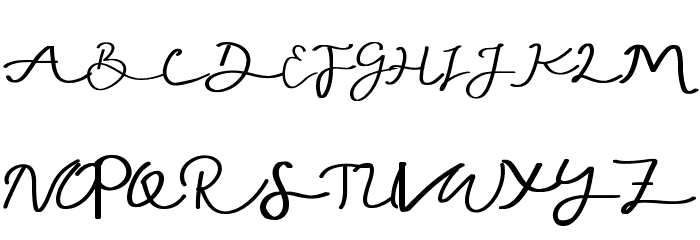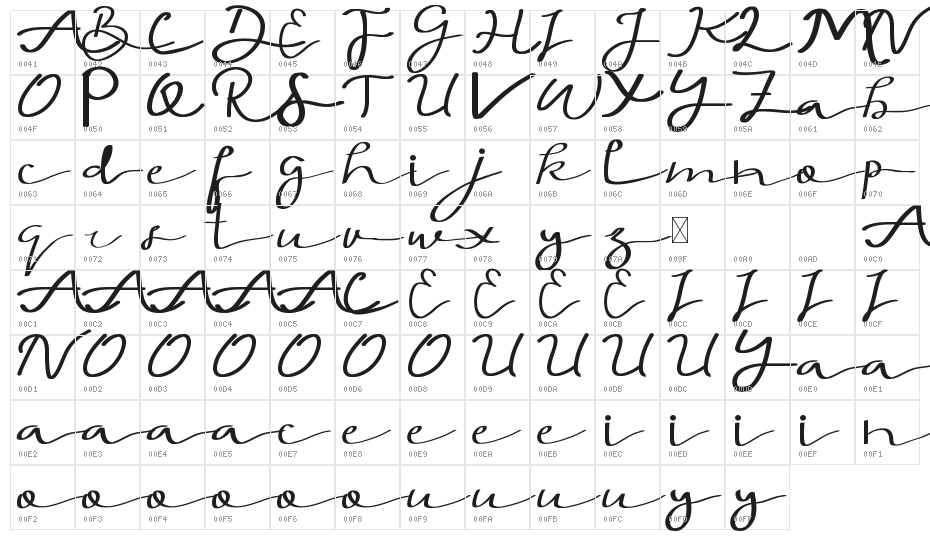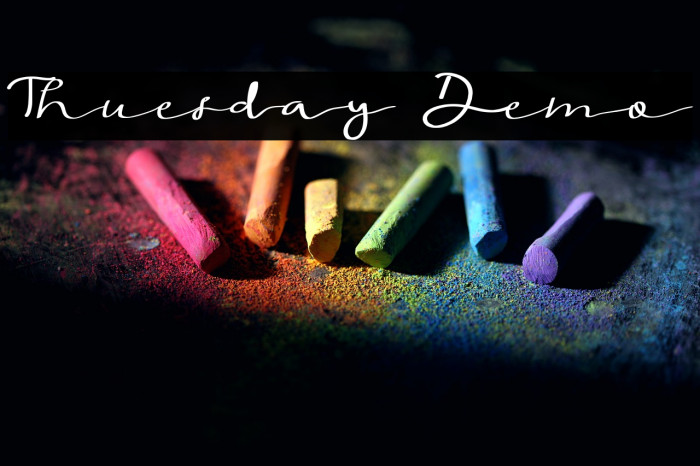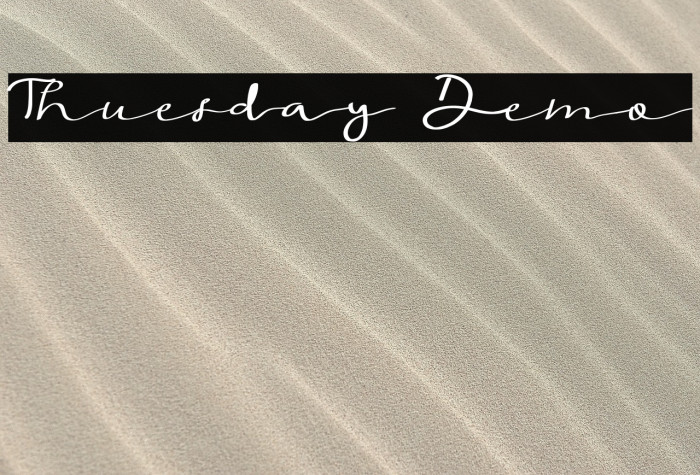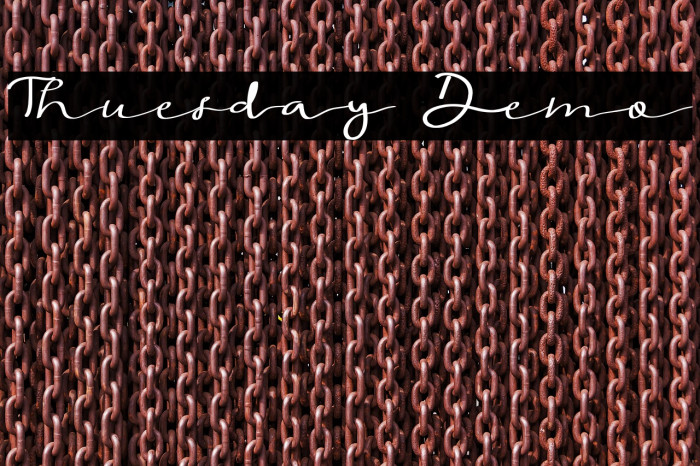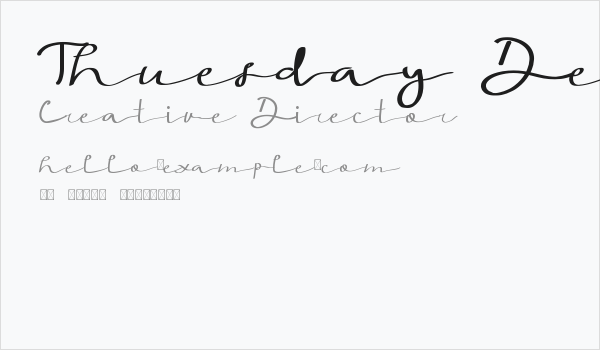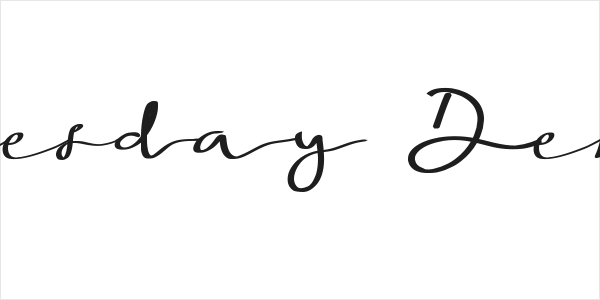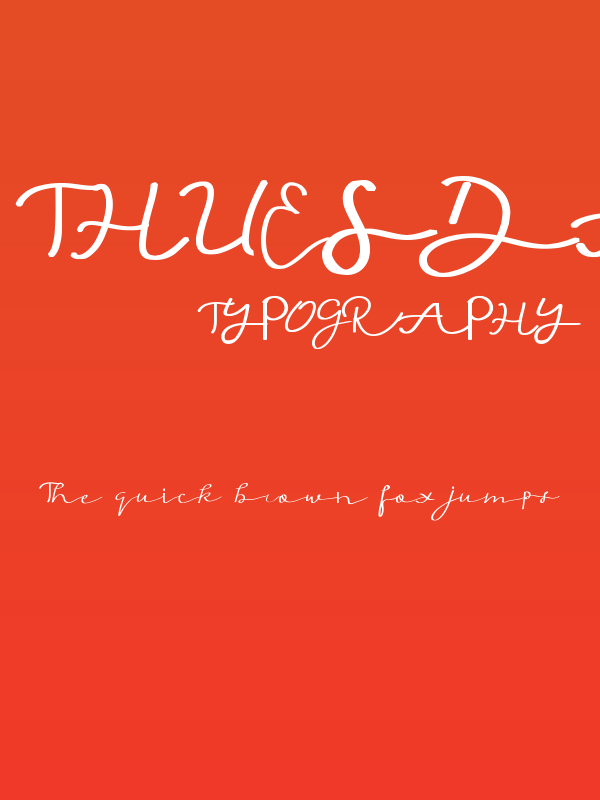
Thuesday Demo Font
Thuesday Demo Description
This font features a flowing, cursive style with elegant loops and swashes, giving it a handwritten appearance. The uppercase letters are bold and expressive, while the lowercase letters maintain a consistent fluidity, enhancing the script's natural feel. The characters are connected, creating a seamless and continuous line that mimics traditional calligraphy. This font's playful yet sophisticated design makes it suitable for creative and artistic projects. The strokes vary in thickness, adding a dynamic contrast that enhances readability while maintaining an artistic flair.